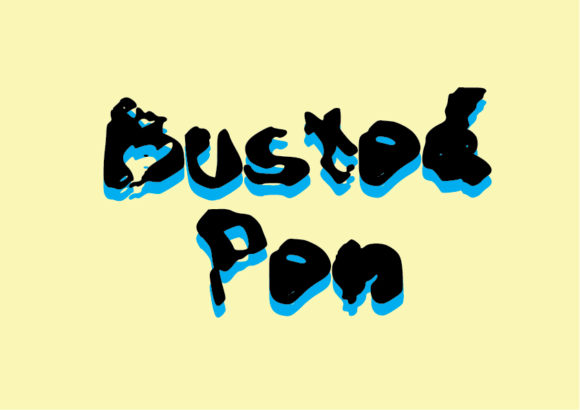
The Busted Pen Font: A Quirky, Inky Mess for Your Design Projects
Have you ever owned a cheap fountain pen, only to see it break or malfunction when exposed to high temperatures? The result is often a beautiful, yet chaotic mess of ink. The Busted Pen Font captures this aesthetic perfectly, making it a unique addition to your design toolkit.
A Relatable Design Moment: Finding the Perfect Font
I recall working on a project where I needed a font that would convey a sense of playfulness and creativity. I scoured the internet, but nothing seemed quite right. That was until I stumbled upon the Busted Pen Font. Its quirky, handwritten charm instantly resonated with me, and I knew I had found the perfect fit.
Here’s what I love about the Busted Pen Font:
• ✨ Unique, handwritten aesthetic that’s perfect for creative projects
• ✅ Includes upper and lower case letters, numbers, and a selection of symbols and punctuation
• ✅ Great for adding a touch of whimsy to your designs
And here are a few quirks to keep in mind:
• 🤔 Some letters may appear a bit inconsistent or irregular, which can be both charming and challenging to work with
• ⚠️ Limited character set compared to more comprehensive fonts
The Busted Pen Font was inspired by the imperfections and quirks of cheap fountain pens. The designer aimed to capture the essence of a broken pen’s inky mess, resulting in a unique and captivating font.
What characters are included in the Busted Pen Font? The Busted Pen Font includes upper and lower case letters, numbers, and a selection of symbols and punctuation.
Is the Busted Pen Font suitable for body text? While the Busted Pen Font is primarily designed for display purposes, it can be used for short paragraphs or captions. However, its irregularities may make it challenging to read in large blocks of text.